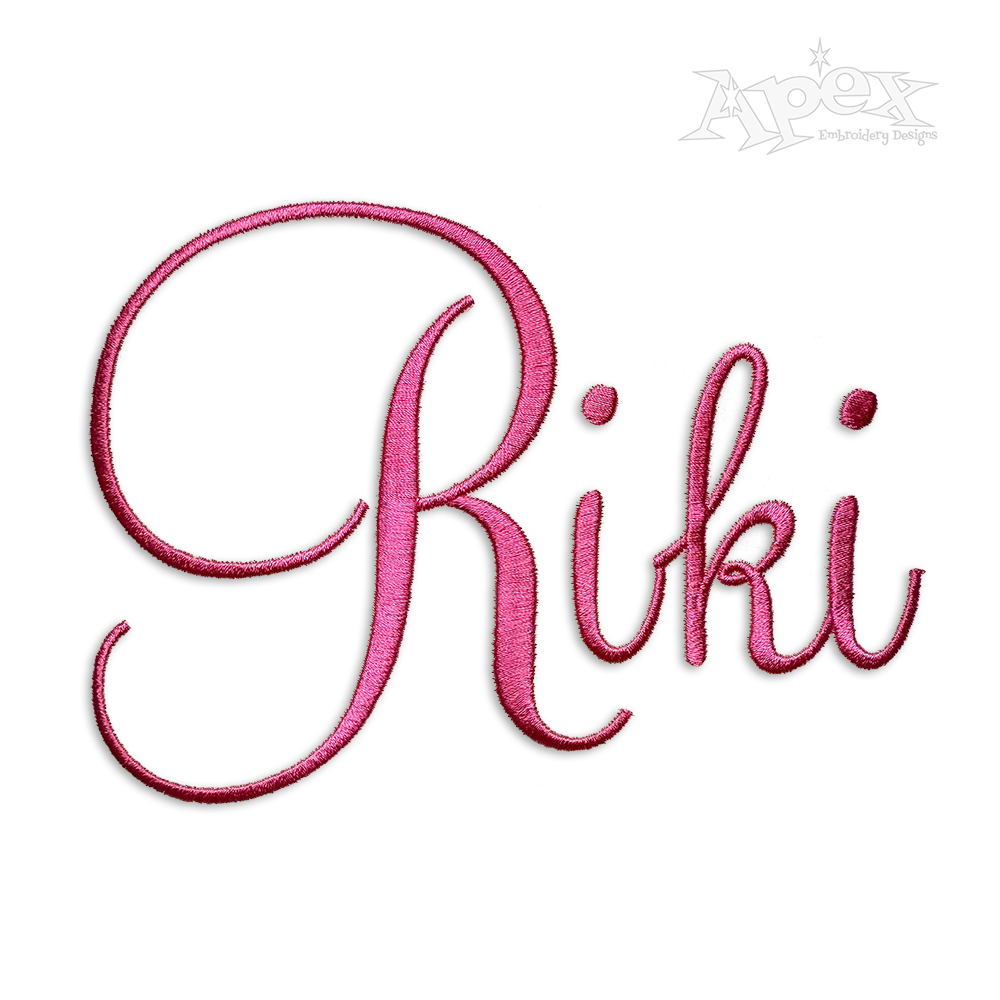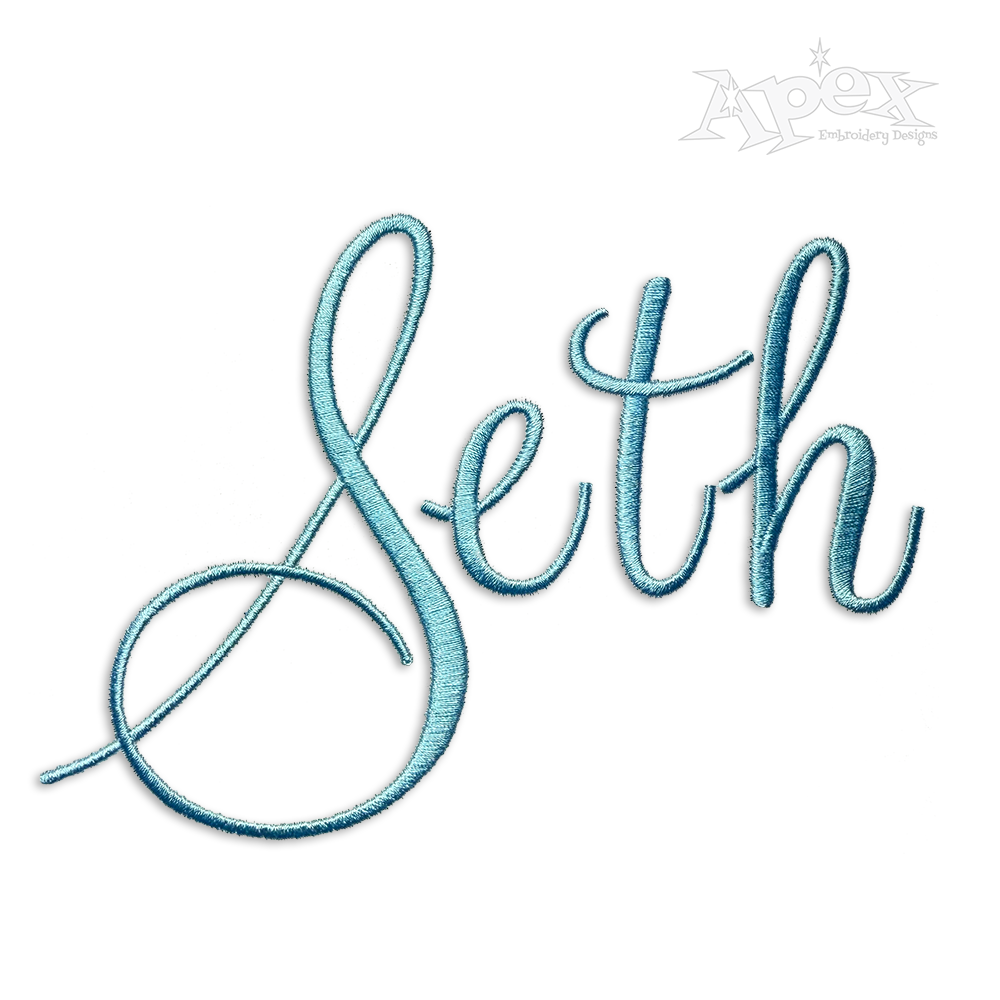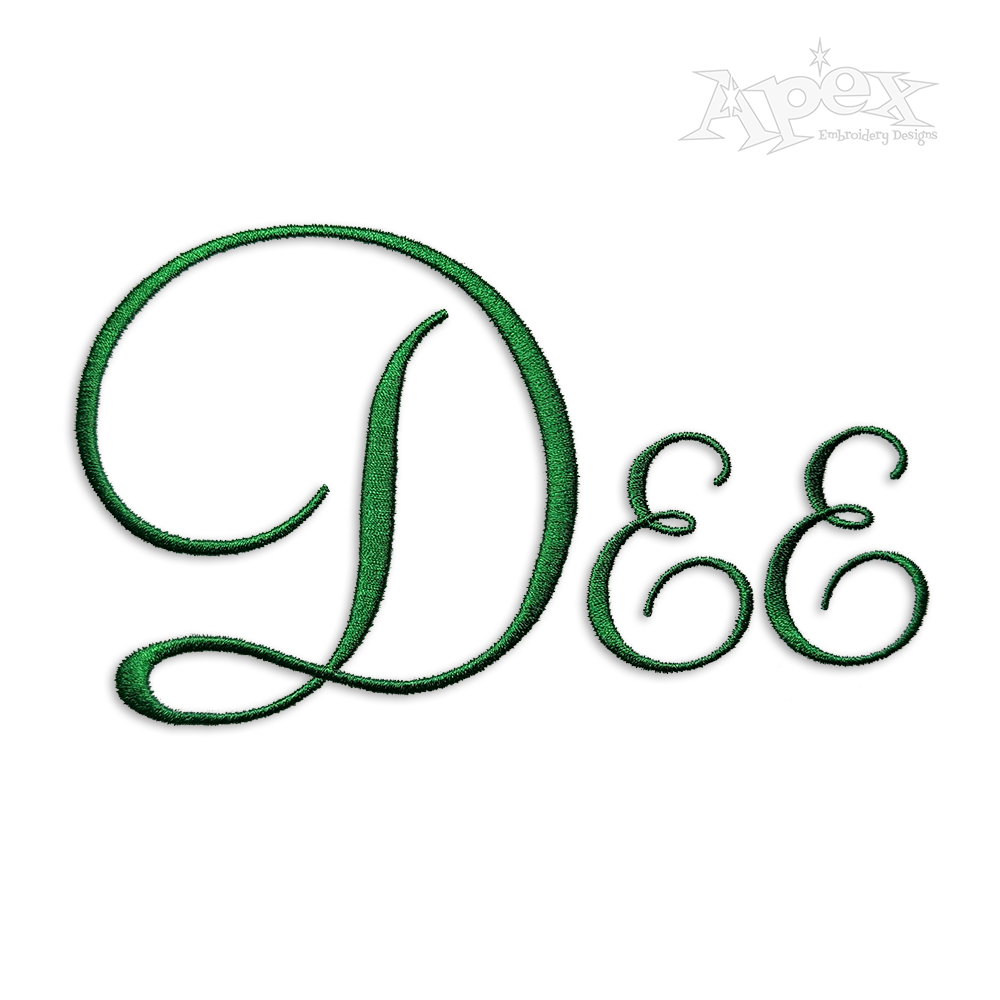
Houston Script Embroidery Font
Born from the timeless cadence of traditional Southern calligraphy and grand architectural flourishes, the Houston Script Embroidery Font brings an undeniable presence to custom monogramming. When digitizing this script, our artisan studio sought to balance lavish, expressive swashes with crisp structural integrity. Every sweeping loop and slender connector has been sculpted to glide effortlessly beneath the needle, reflecting ambient light with the rich, fluid sheen that only dedicated satin stitch craftsmanship can deliver. The result is a stately yet intimate alphabet that lends immediate dignity to personalized gifts and heirloom decor.
Project Ideas for Houston Script
The poised, rhythmic sweep of Houston Script opens endless possibilities for thoughtful customization across classic lifestyle pieces:
- Bespoke Bridal Robes & Slippers: Embroider crisp bridal initials or full names across silky kimono robes and trousseau garments for enduring wedding morning photography.
- Linen Cocktail Napkins & Dinner Linens: Frame table settings with graceful single-letter or traditional three-letter monograms that bring vintage warmth to holiday banquets.
- Heirloom Nursery Bedding: Stitch a baby’s full name or sprawling nursery monogram across waffle-weave blankets, boudoir pillows, and cotton layettes.
- Tailored Canvas Resort Totes: Add an unmistakable touch of coastal sophistication with high-contrast lettering centered on heavyweight travel totes.
- Executive Gifting & Dress Shirts: Apply subtle, tonal single-letter monograms to crisp cuffs, breast pockets, and handkerchiefs for understated personal refinement.
Houston Script's energetic ascenders and trailing flourishes harmoniously fit both traditional and asymmetrical arrangements:
- Napkin Corner Diagonals: Angle the 2-inch or 4-inch single initial at 45 degrees along mitered hem corners for balanced, formal tabletop presentation.
- Euro Sham & Duvet Centers: Position the commanding 6-inch monogram centrally to anchor master bedroom suites with classical symmetry.
- Left-Chest & Robe Lapels: Utilize the 2-inch scale centered 7 to 9 inches down from the shoulder seam for apparel that balances legibility with tailored polish.
- Plush Towel Borders: Position the 4-inch letters 1.5 to 2 inches above the woven dobby border on guest bath towels for a clean, boutique-hotel aesthetic.
Houston Script Craft & Letterform Details
True luxury embroidery lives in the subtle engineering of stitch direction and pull compensation. In digitizing Houston Script, every curve has been mapped to follow the natural hand motion of a pointed pen, tapering dynamically from broad, velvety downstrokes into whisper-thin connecting flourishes. Each satin column features carefully calculated stitch angles that pivot gracefully around looping ascenders, ensuring smooth curves without puckering or excessive thread buildup at crossover intersections. By preserving pure satin stitch paths across all three sizes, Houston Script maintains a liquid, glossy finish that captures light from every angle, bestowing a lasting artisan hallmark on every heirloom creation.